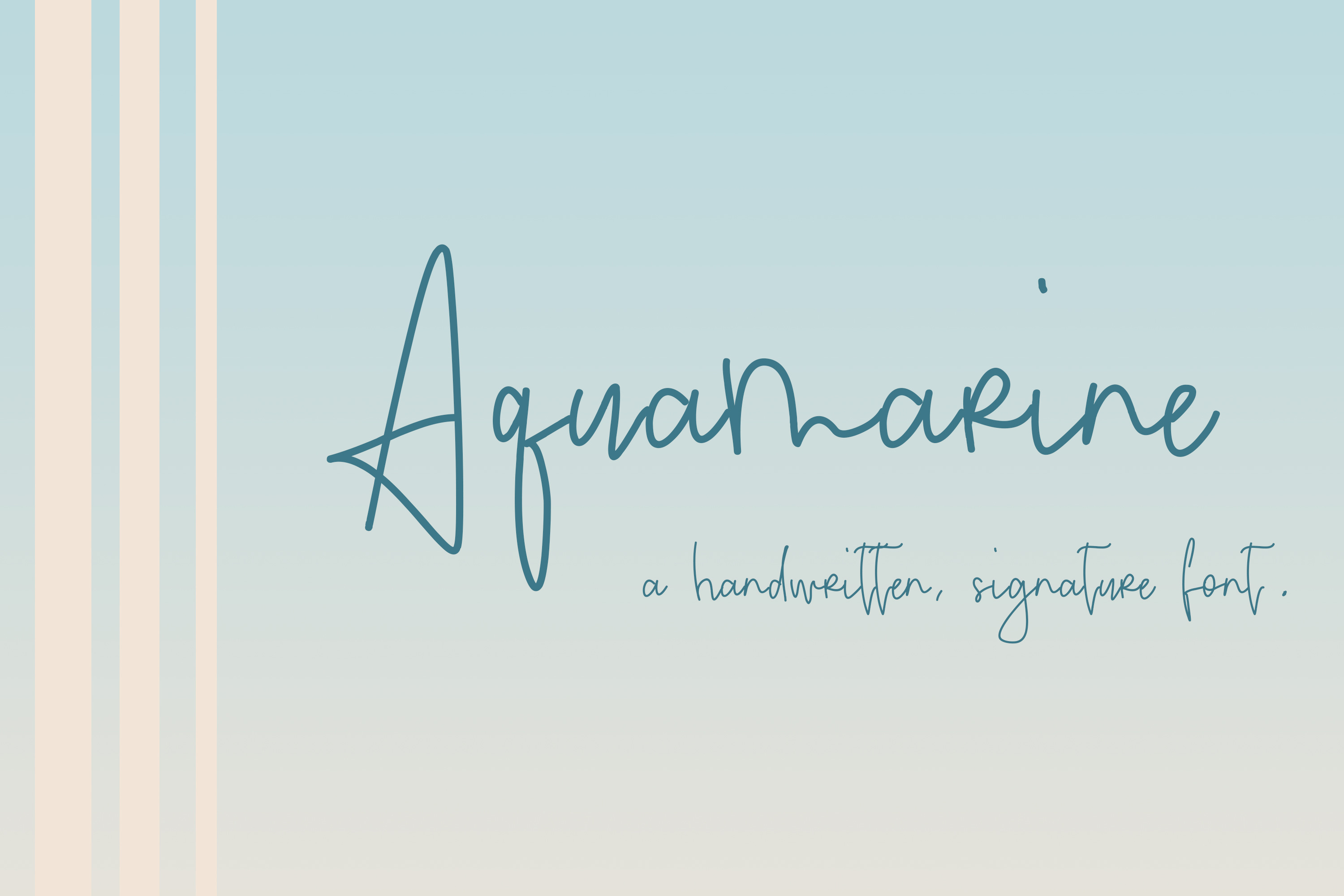
aquamarine // a handwritten font
Aquamarine is a delicate, handwritten font family in two weights: bold and regular. This font pairs lovely with a serif font for all your designing needs, including:
- greeting cards
- invitations
- posters
- t-shirt designs
- SVG Designs
- And more...
- Uppercase Characters
- Lowercase Characters
- Multilingual support for various languages: French, Spanish, Italian